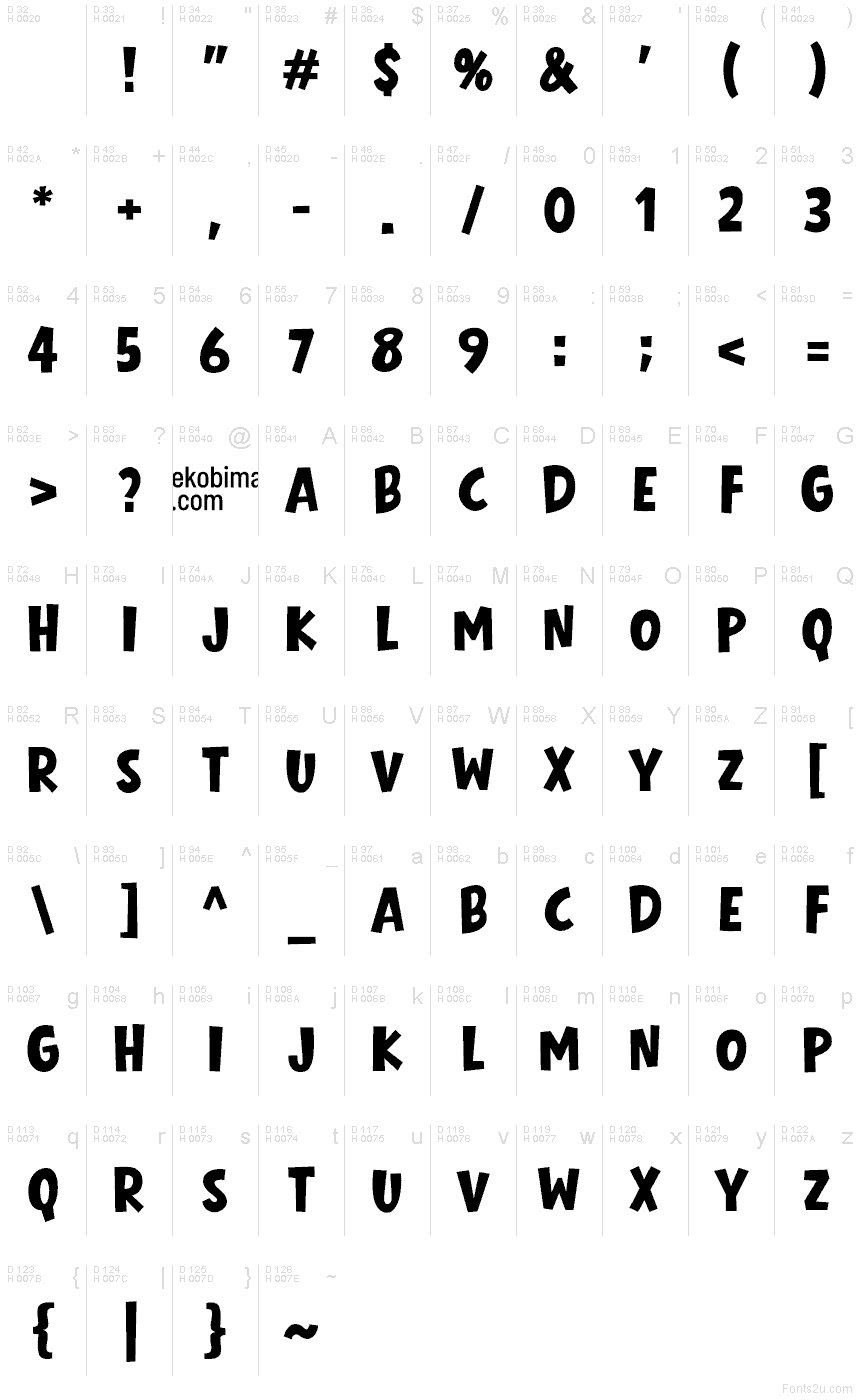
Beaver Punch
Beaver Punch font by Eko Bimantara is a free comic font. It stands out with chunky, hand-cut strokes and slightly pinched, wedge-like tops that give each letter a delightful snap. The texture feels inky and a touch unruly, yet the rhythm stays tight and readable, so headlines hit hard without turning messy.
Using Beaver Punch, your titles come off lively and loud—great for game titles, snack packaging, comedy flyers, kids’ book covers, event posters, stickers, and splashy YouTube thumbnails. The tall, slightly condensed build saves space while keeping impact. Pair this free font with a clean, neutral sans for body copy and let Beaver Punch handle the shout.